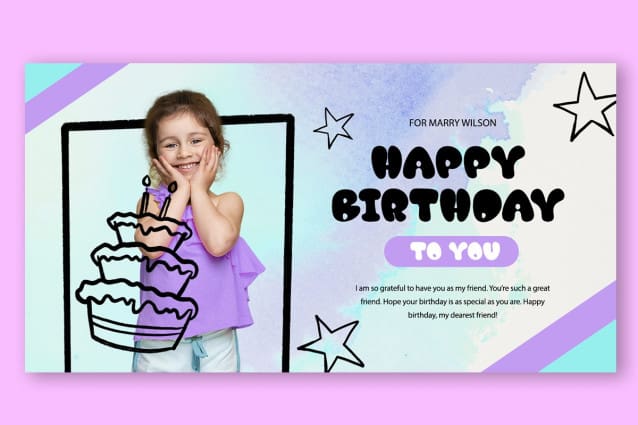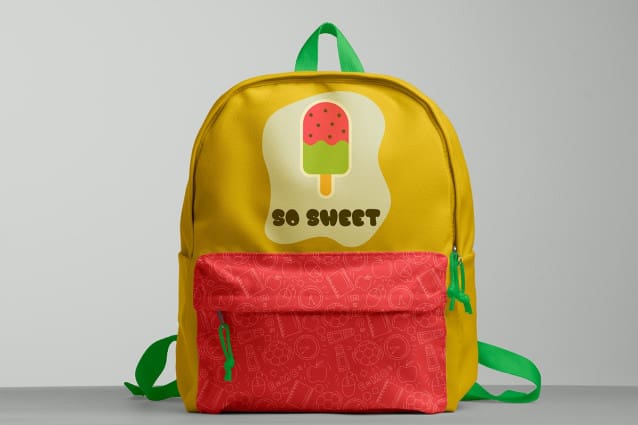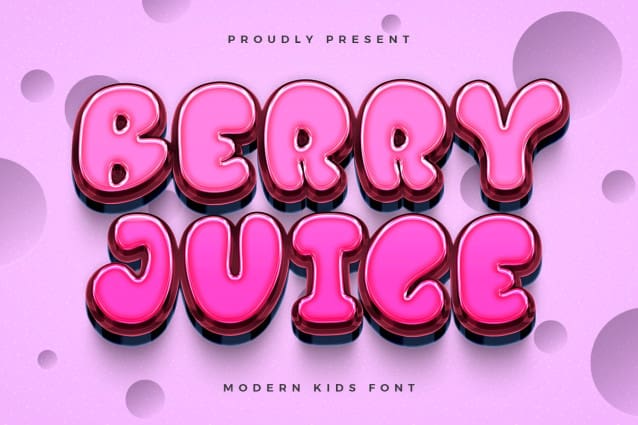
Berry Juice Font
Berry Juice Font – Modern Kids Font is a modern font with a simple, easy-to-read appearance. A fun typeface that anyone who sees it can easily fall in love with. Clean fonts without any additions, easy to understand, and classified as legible.
Berry Juice Font – Modern Kids Font can use as a digital font and print font. This font can write as comic covers, magazine covers, and children’s book cover. This font can be used as a poster and banner. These reasons must be complemented by colors and ornaments that support it. For small-size print fonts, this font can also use for small merchandise from amusement parks, such as; key chains, fridge magnets, and stickers, or can be produced on t-shirts, jackets, hats, etc. In addition, it can use as snack packaging.
The digital application of this font is in product advertisements, animated cartoon videos, children’s films, and others. It can give an exciting and fun impression to video shows. This is to attract interest in buying products being marketed and watching films that have been shown.